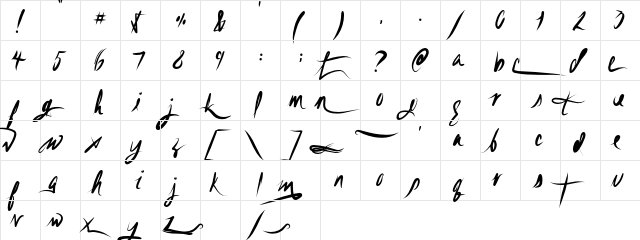
Unfolding Tragedy Clean
Design Context for Unfolding Tragedy Typeface
Unfolding Tragedy is a composed and adaptable typeface that performs quietly and consistently across a wide range of design contexts.
Pro Tip: Use Unfolding Tragedy in both headline and body roles to test its range before committing to a single application.